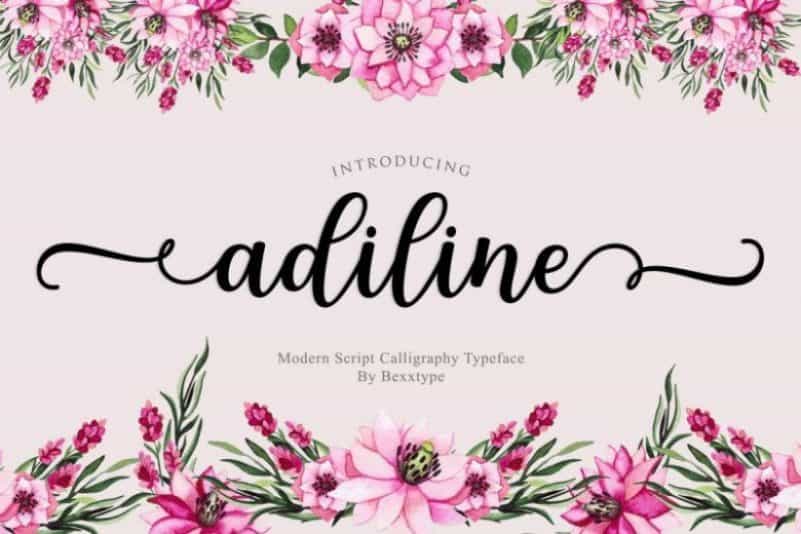
Introducing Adiline Font. It was created and posted by Bexxtype. It is a new fresh and modern script with a handmade calligraphy style, and it has decorative characters and a dancing baseline. Oh! So lovely on invitation like greeting cards, branding, business cards, quotes, posters, and such.